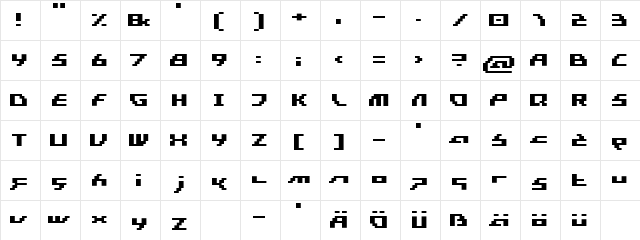
Superstar Fat Free Font
Superstar Fat
Style: Fat
Foundry: Superlooper
Complete Superstar Fat glyph index. Displaying only characters natively supported by Superstar Fat font.
Design Context for Superstar
Superstar is a composed and adaptable typeface that performs quietly and consistently across a wide range of design contexts.